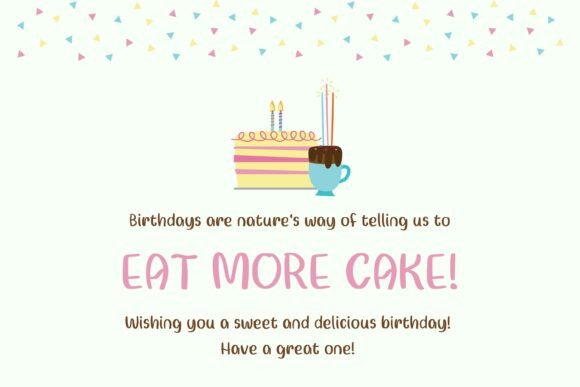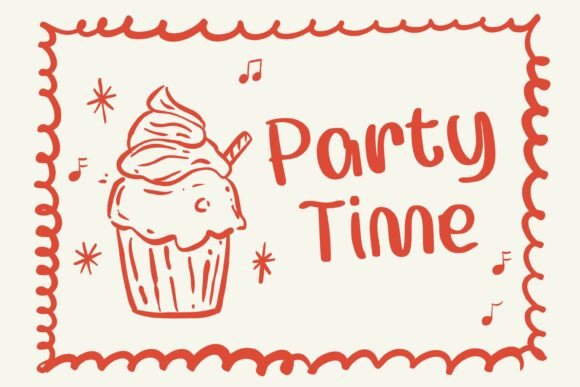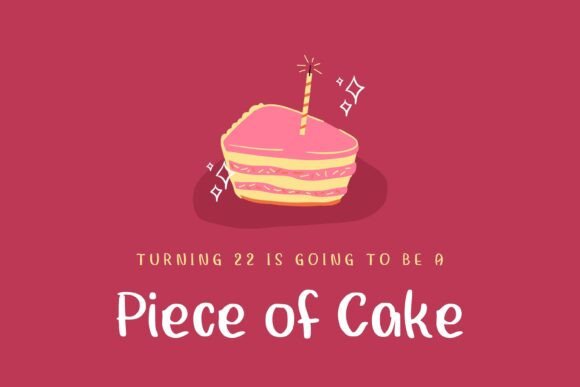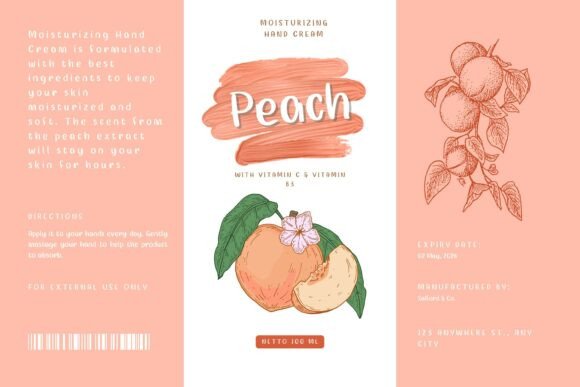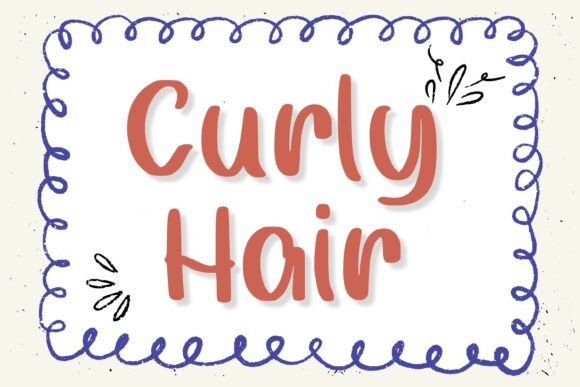
Introducing the Curly Hair Font: Adding a Touch of Whimsy to Your Designs
Are you tired of using the same old fonts for your greeting cards, letters, and educational materials? Do you want to add a dash of personality and whimsy to your designs? Look no further than the Curly Hair font, a meticulously crafted typeface that is sure to bring a smile to your audience’s faces.
The Magic of Curly Hair Font
The Curly Hair font is an artistically charming typeface that enhances your messages with its whimsical curls and soft, gentle lines. It’s an innovative twist on classic typography, seamlessly blending elegance with lightheartedness. This font is exceptionally versatile and can be used for a variety of design projects, from greeting cards and scrapbooking to educational materials and community event flyers.
Perfect for Adding a Personal Touch
Unlike rigid fonts that can feel cold and impersonal, the Curly Hair font is the perfect choice when you want to add a dash of personality to your designs. Its playful curls and soft lines give your messages a warm and welcoming feel, making it ideal for designs that need to connect with your audience on a personal level.
Pairing Well with Other Design Elements
One of the best things about the Curly Hair font is how well it pairs with other design elements. Its whimsical nature makes it a perfect match for hand-drawn doodles and watercolor textures, adding a touch of elegance and sophistication to your designs. Use it to create a beautiful and eye-catching scrapbook page, or pair it with bold colors and playful graphics to create a fun and engaging community event flyer.
Adding a Touch of Joy and Beauty to Your Designs
The Curly Hair font is not just a choice; it’s a statement. It’s a way to add a dash of joy and beauty to your designs, making them stand out from the crowd. Whether you’re creating a greeting card, a how-to guide, or an educational material, this font is sure to bring a smile to your audience’s faces. Its unique and irresistibly attractive design makes it a one-of-a-kind font that will elevate your designs to the next level.
Use Cases for the Curly Hair Font
The Curly Hair font is incredibly versatile and can be used for a wide range of design projects. Here are some use cases to get you started:
- Greeting cards: Add a personal touch to your greeting cards with the Curly Hair font, making them stand out from the crowd.
- Scrapbooking: Create beautiful and eye-catching scrapbook pages with the Curly Hair font and hand-drawn doodles.
- Educational materials: Add a touch of whimsy and fun to your educational materials, making learning more engaging and enjoyable.
- Community event flyers: Create welcoming and eye-catching community event flyers with the Curly Hair font and bold colors.
- How-to guides: Add a dash of personality to your how-to guides with the Curly Hair font, making them more approachable and fun to read.
In conclusion, the Curly Hair font is a unique and versatile typeface that is sure to add a touch of whimsy and fun to your designs. Its playful curls and soft lines make it perfect for designs that need to connect with your audience on a personal level. With its wide range of use cases and ability to pair well with other design elements, the Curly Hair font is an excellent choice for designers and crafters looking to elevate their designs to the next level.